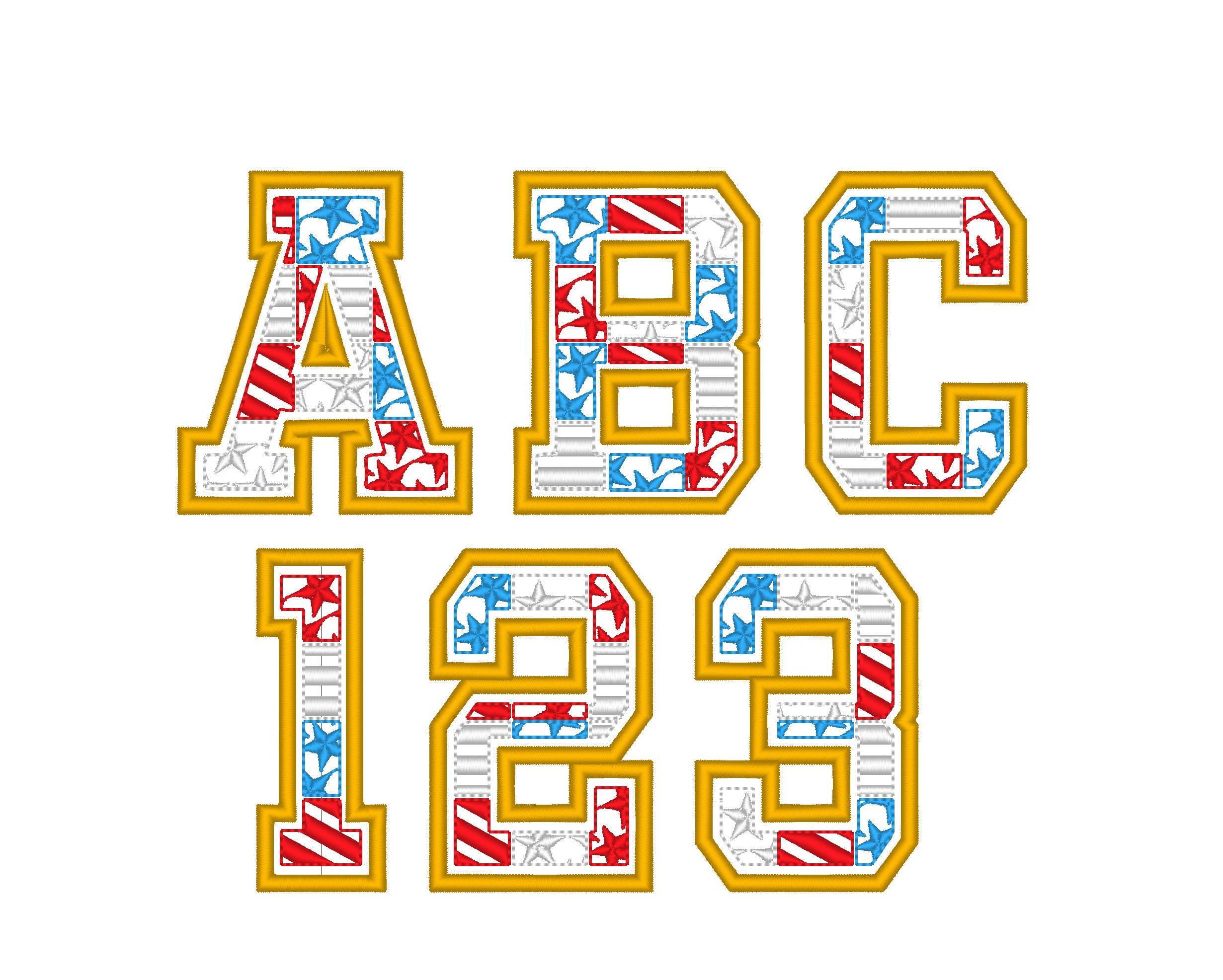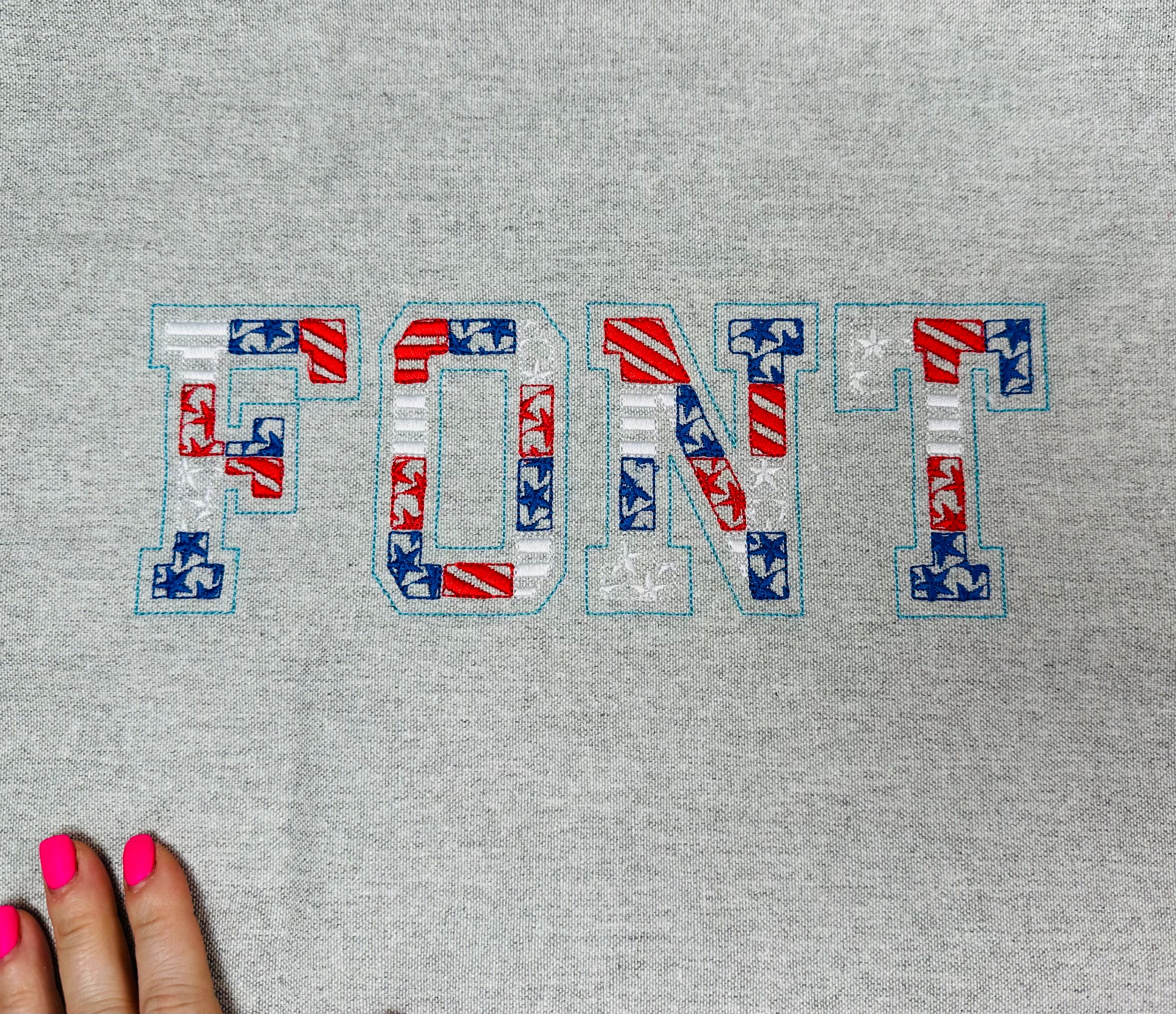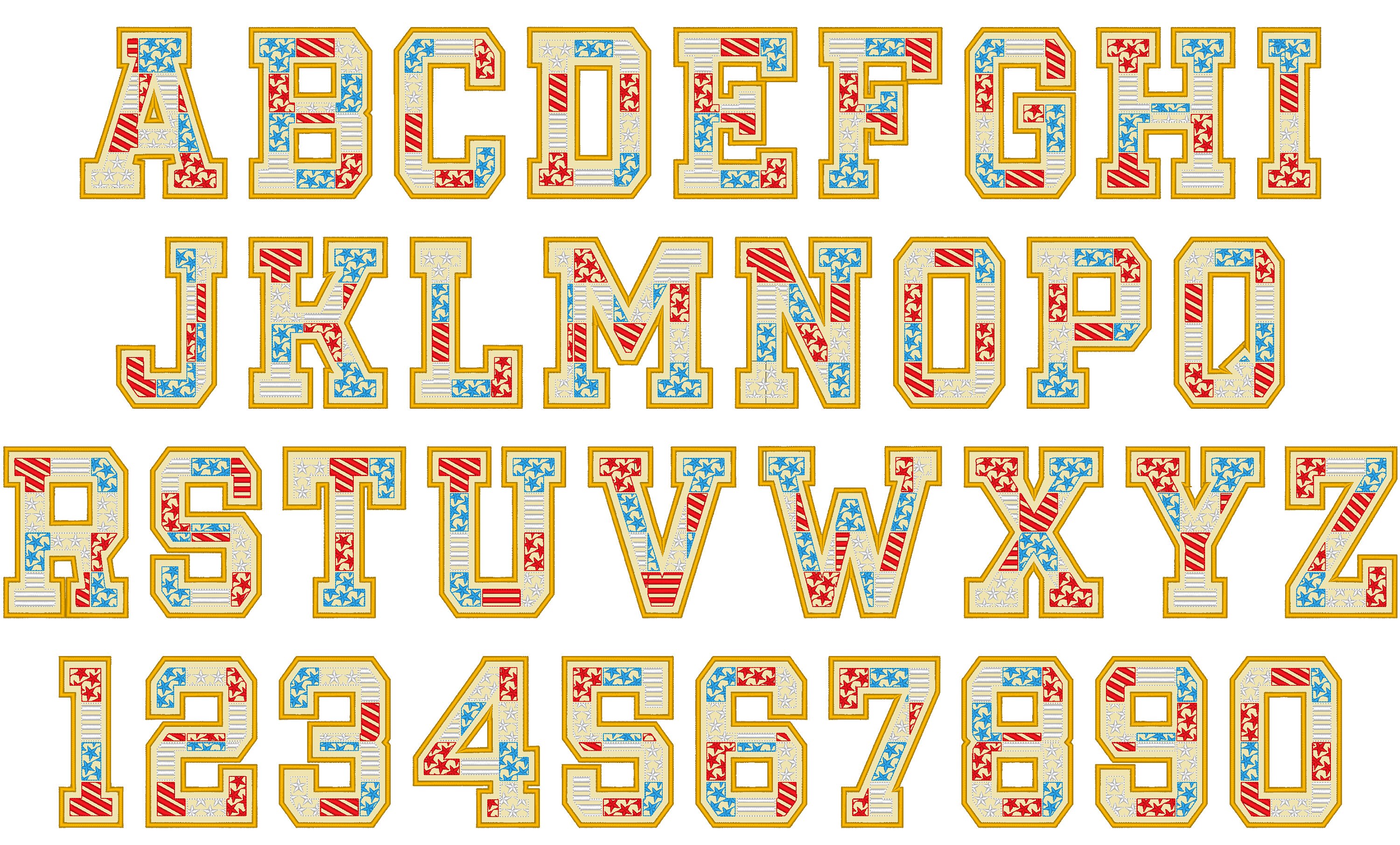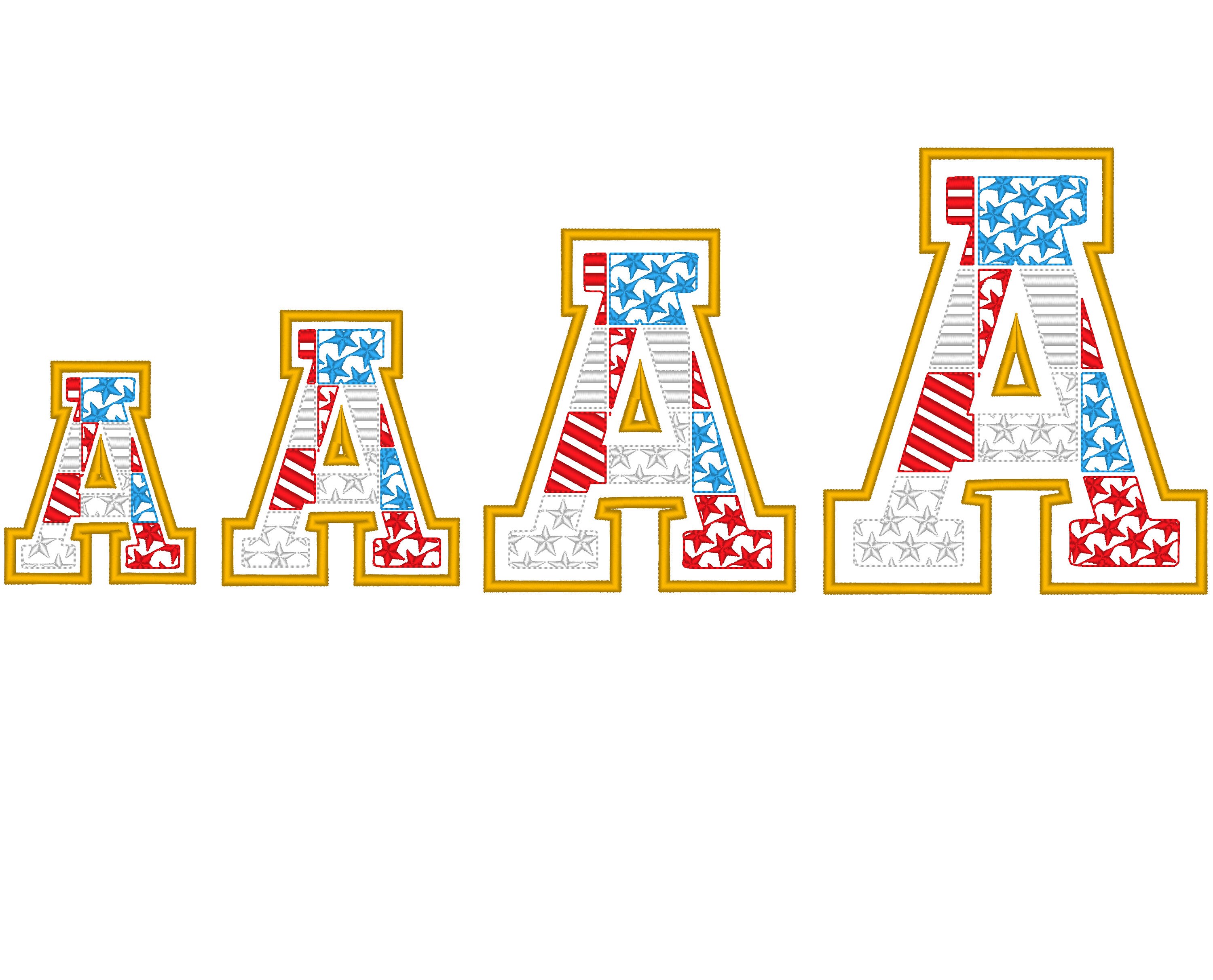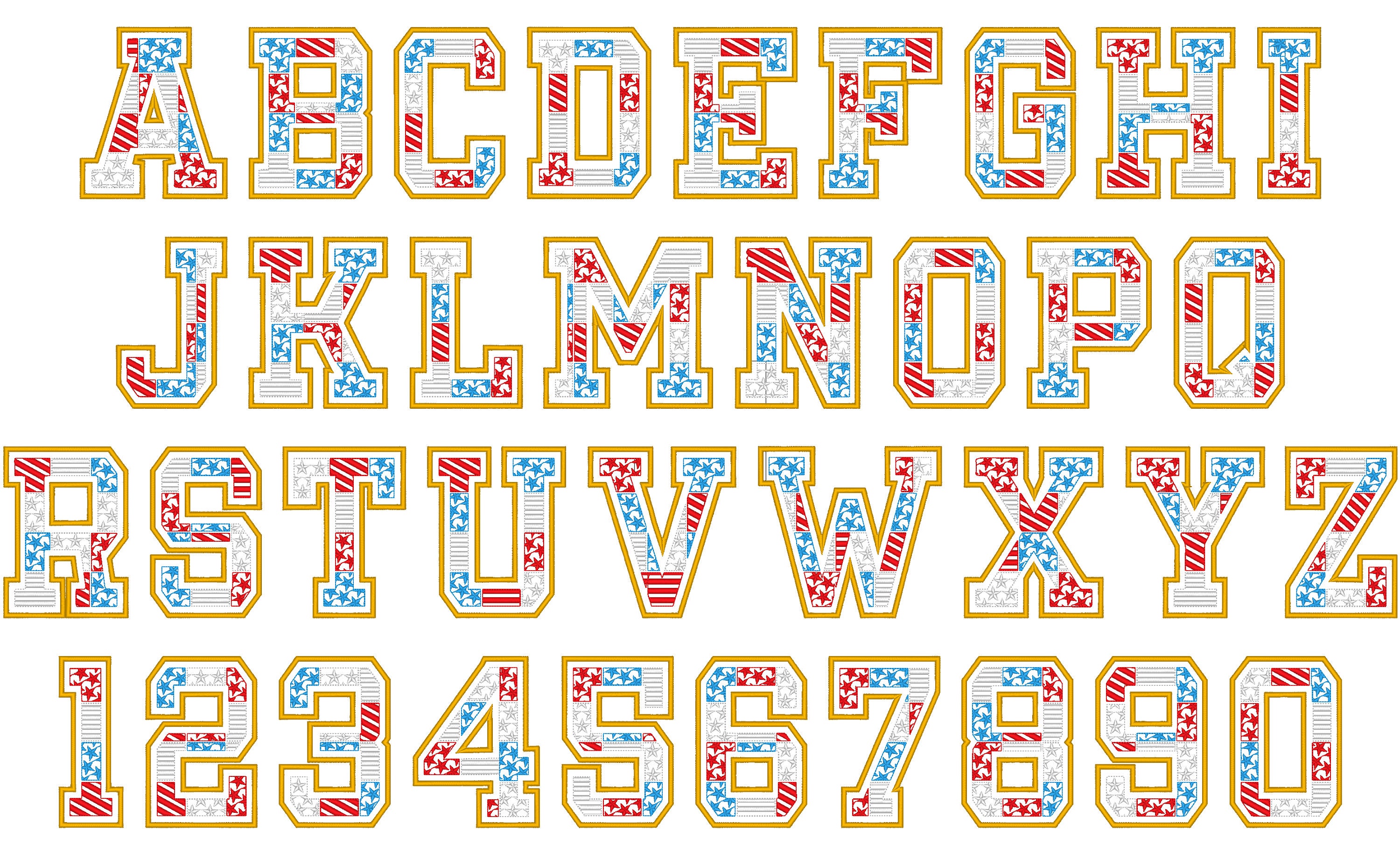
Patchwork Patriotic applique Font machine embroidery designs from 3 up to 6 Stars and Stripes Independence Day 4th July block font BX included
Whole alphabet A-Z uppercase letters, and numbers 0-9
This appliqué features positional and tack down stitches, followed by a satin stitch outline and decorative stitches on top.